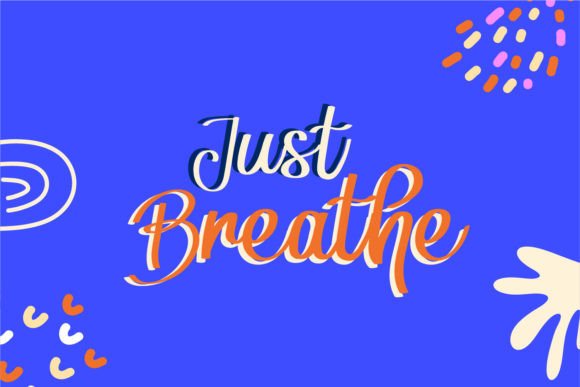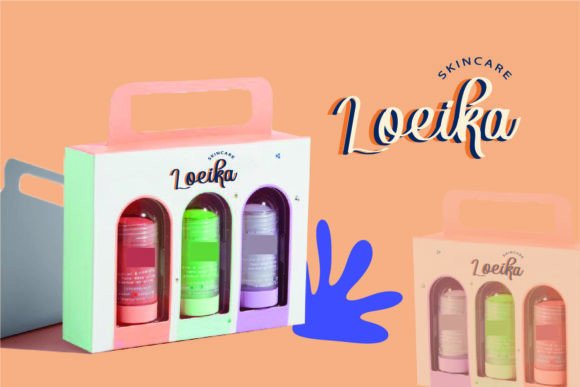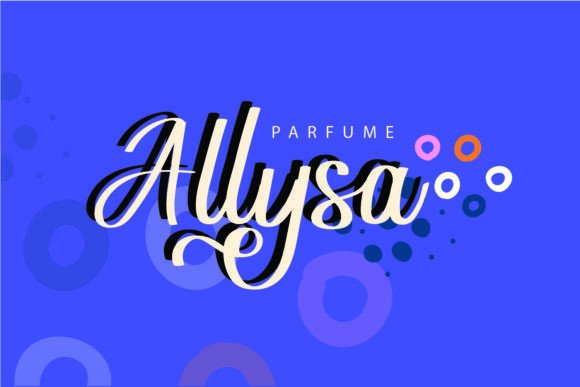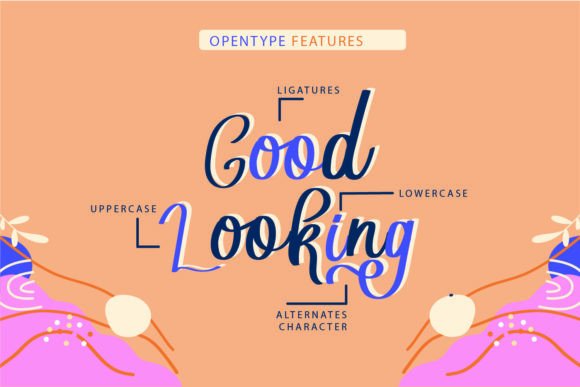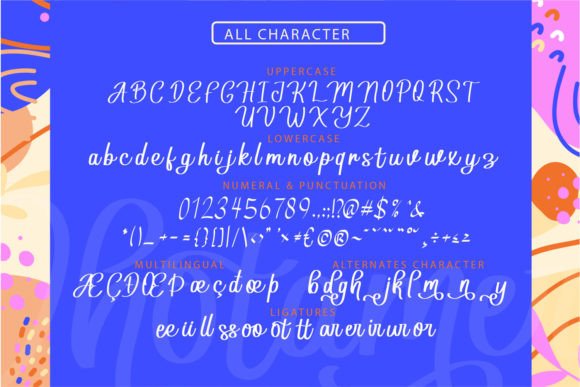
Dhotamer Font
A Modern and Cool Handwritten Script
Dhotamer is a modern and sleek handwritten script font that brings style and sophistication to your designs. With its clean lines and bold strokes, this font offers a unique blend of elegance and coolness. It’s perfect for projects that need a contemporary handwritten touch, while still maintaining a timeless appeal.
Whether you’re working on logos, invitations, or social media graphics, Dhotamer adds a distinctive charm to your work that’s sure to stand out.
Dhotamer is incredibly versatile, making it ideal for a wide range of creative applications. It’s perfect for logos, business cards, and branding materials. The font’s bold yet sophisticated style ensures that your brand has a modern, recognizable look.
This font works beautifully for event invitations, greeting cards, and promotional materials. The combination of elegance and modern flair adds a fresh touch to any occasion.
Dhotamer also shines in social media graphics, blog headers, and online marketing materials. Its unique handwritten style captures attention and adds personality to your content.
Clear, Bold, and Easy to Read
Despite its artistic and unique design, Dhotamer remains highly legible at any size. The letter spacing is well-balanced, ensuring that your text stays neat and readable, whether used for large headings or smaller captions.
Pair Dhotamer with a simple sans-serif font for contrast. Use it for main titles and combine it with a sans-serif font for body text. This creates a beautiful contrast while keeping your design clean and readable.
To highlight Dhotamer’s bold, modern charm, use minimalist backgrounds and neutral color schemes. Shades like dark gray, ivory, and pastel colors let the font’s distinctive strokes stand out without overpowering your design.
For wedding materials, high-end branding, or product packaging, consider adding subtle design elements that complement the font’s sleek style. For social media and marketing materials, keep your layout clean to allow the font to shine.
Think about the mood you want to create. Dhotamer is perfect for designs that need to feel bold, stylish, and timeless, with just the right amount of flair.
Dhotamer is more than just a modern handwritten font. It’s a creative tool that adds sophistication and personality to your designs. Its clean lines and bold character make it a perfect choice for a variety of projects.
Adding Dhotamer to your font collection ensures you have a versatile and stylish font for any creative need. Whether you’re designing logos, invitations, social media content, or branding, this font will elevate your work with its timeless appeal.